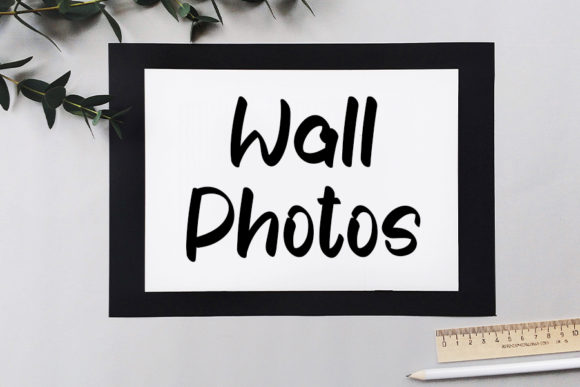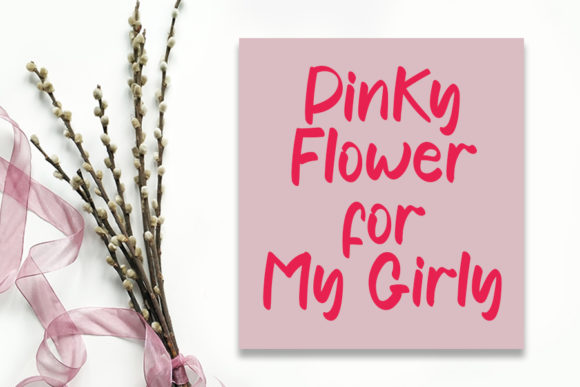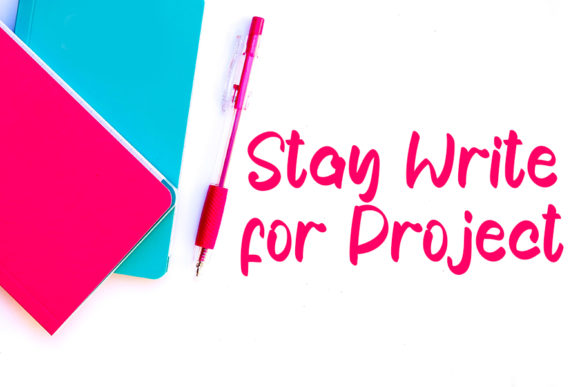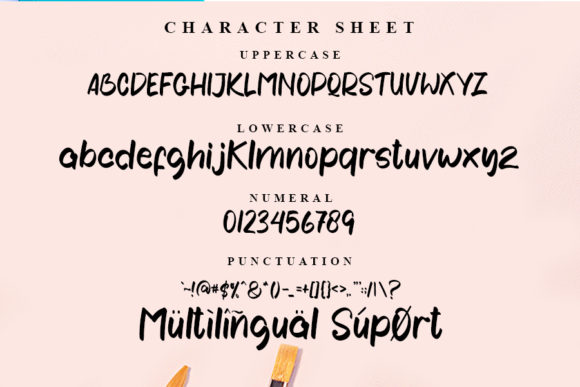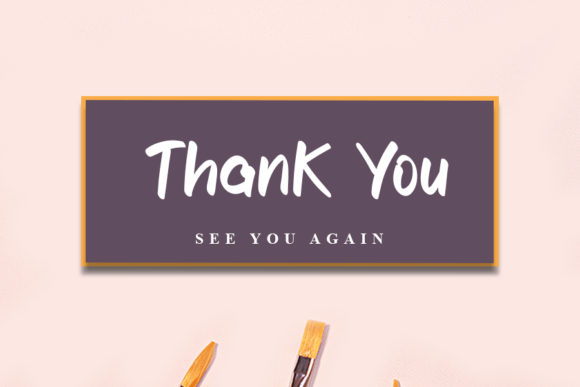
Introduction to Paintminte Font
As a designer, you know that the right font can make or break a creative project. You’re brainstorming ideas for a new brand identity, and suddenly, inspiration strikes – you envision a bold, hand-drawn logo that screams personality. The challenge is finding the perfect font to bring your vision to life.
Enter Paintminte Font, a sweet and clean paint-brushed handwritten font that’s about to become your new go-to design resource. With its fresh and trendy characters, this high-quality font is perfect for any branding, product packaging, or invitation project that requires a touch of whimsy. And the best part? You can download it for free, complete with a transparent background, making it a seamless addition to your design workflow.
Key Features of Paintminte Font
- High-quality vector graphics, ideal for use in creative projects and designs.
- Includes a comprehensive set of glyphs, making it suitable for use in a variety of languages and fonts.
- Unique, hand-drawn style with a modern aesthetic, setting it apart from other fonts and making it a great choice for creative projects.
Honest Review: Paintminte Font
- High-quality design: The Paintminte Font exudes a level of sophistication, making it perfect for professional projects.
- Endless design possibilities: The Paintminte Font can be used in a variety of settings, from logos to typography, making it an essential design resource.
- Limited font styles: While the Paintminte Font is versatile, it’s limited to a single style, which might not cater to every design need.
Paintminte Font: A High-Quality Design Resource
Tips for Getting the Most Out of Paintminte Font
For the best results, use Paintminte Font with a transparent background to create a clean and modern look. You can also experiment with different font sizes and colors to add visual interest to your design.
Paintminte Font is a versatile design resource that can be used in a variety of creative projects, including logos, social media graphics, and infographics. Its high-quality design and transparent background make it perfect for use in presentations, documents, and other professional applications.
The Pacifico Font is a high-quality, modern script font perfect for use in creative projects, such as headings, quotes, or titles. It features a transparent background, making it easy to use on images or as a design resource. When to use: Branding, marketing materials, or any project requiring a touch of elegance. It compares to Paintminte Font by offering a more modern, sleek look.
Yes, the Paintminte Font includes a transparent background, making it ideal for use in creative projects that require a high level of design flexibility. This feature allows designers to easily overlay the font on top of images or other design elements.